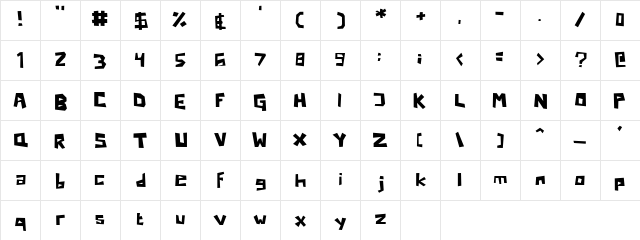
Boma Normal
Design Context for Boma Typeface
Boma is a composed and adaptable typeface that performs quietly and consistently across a wide range of design contexts.